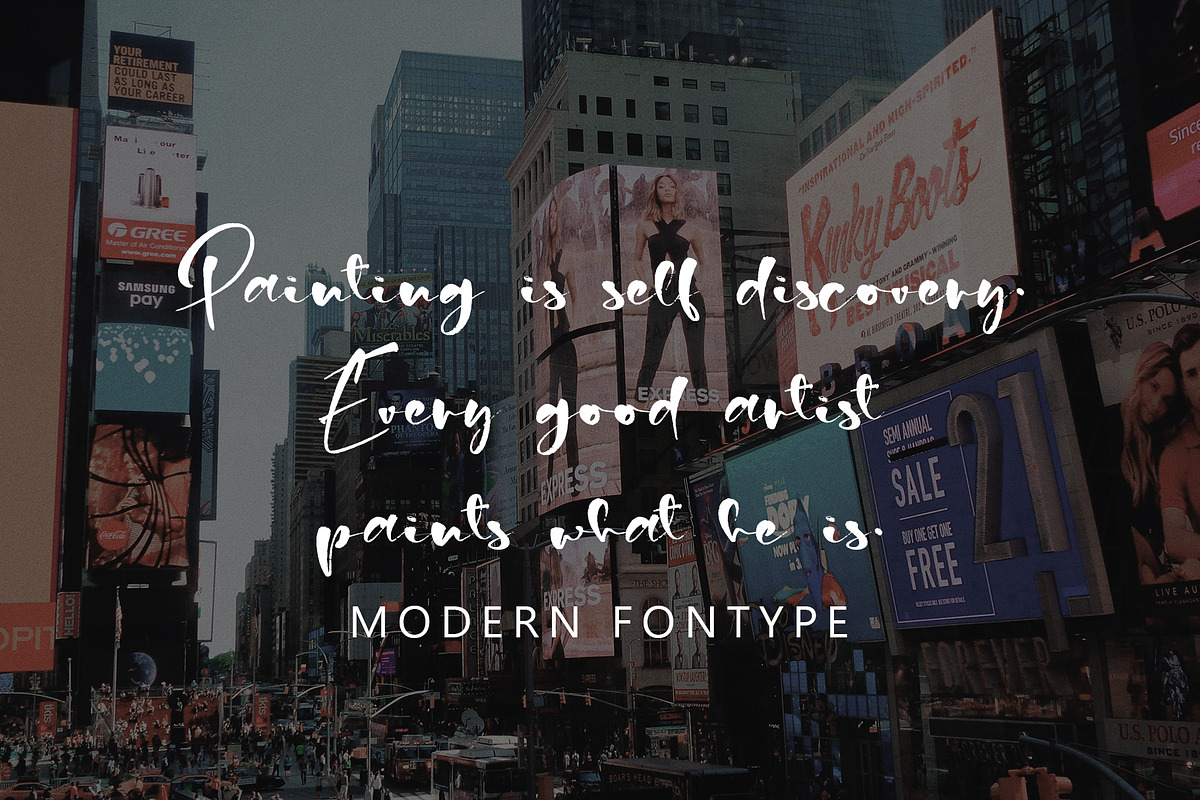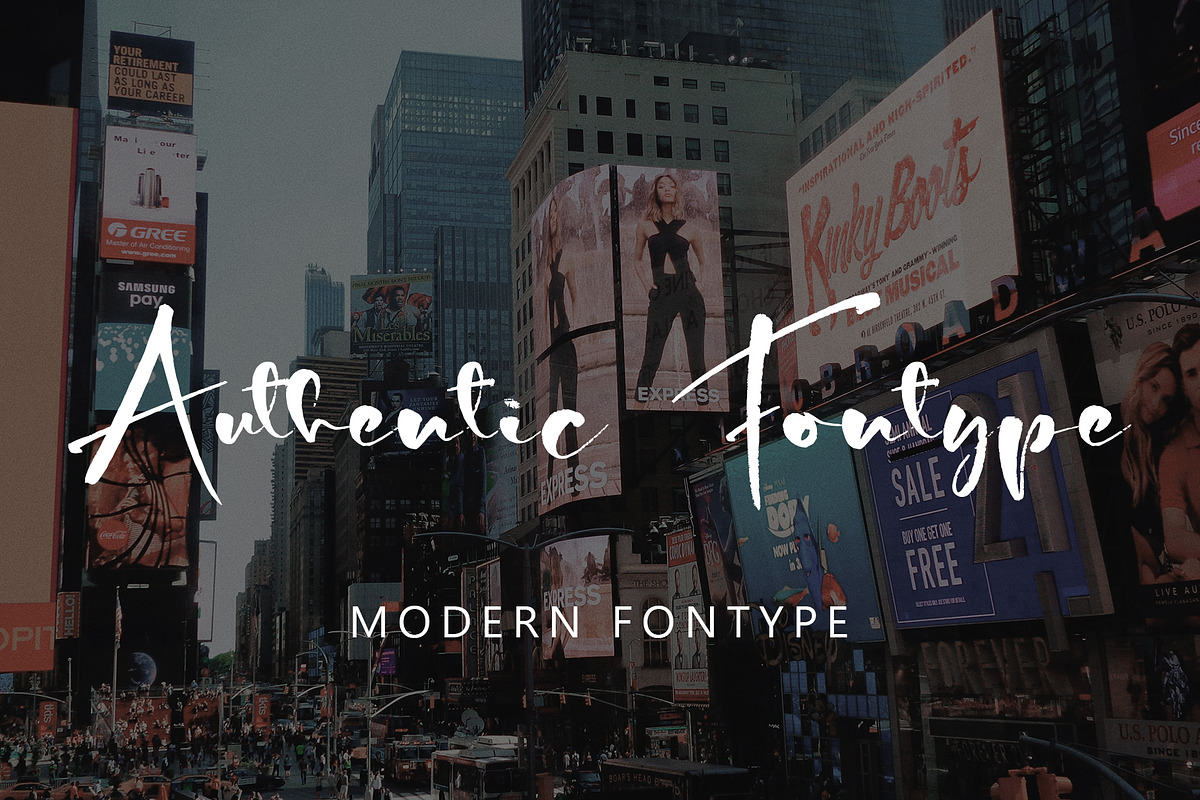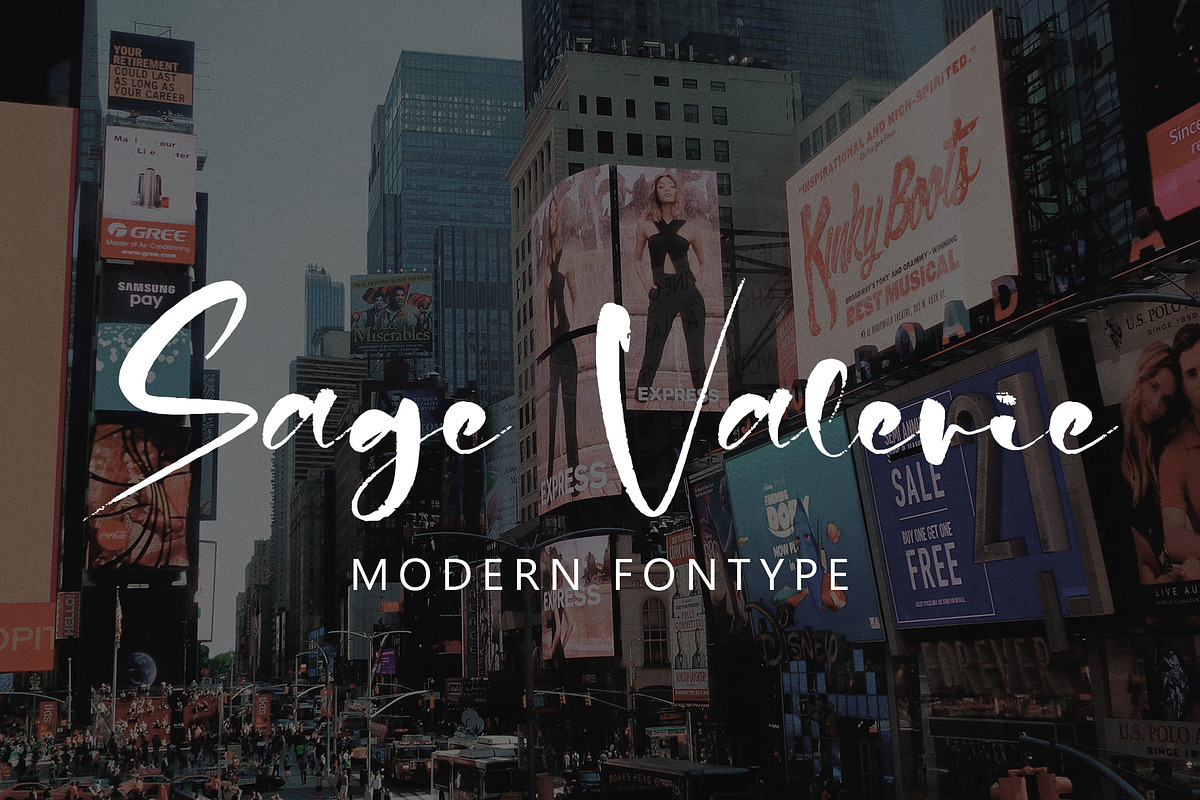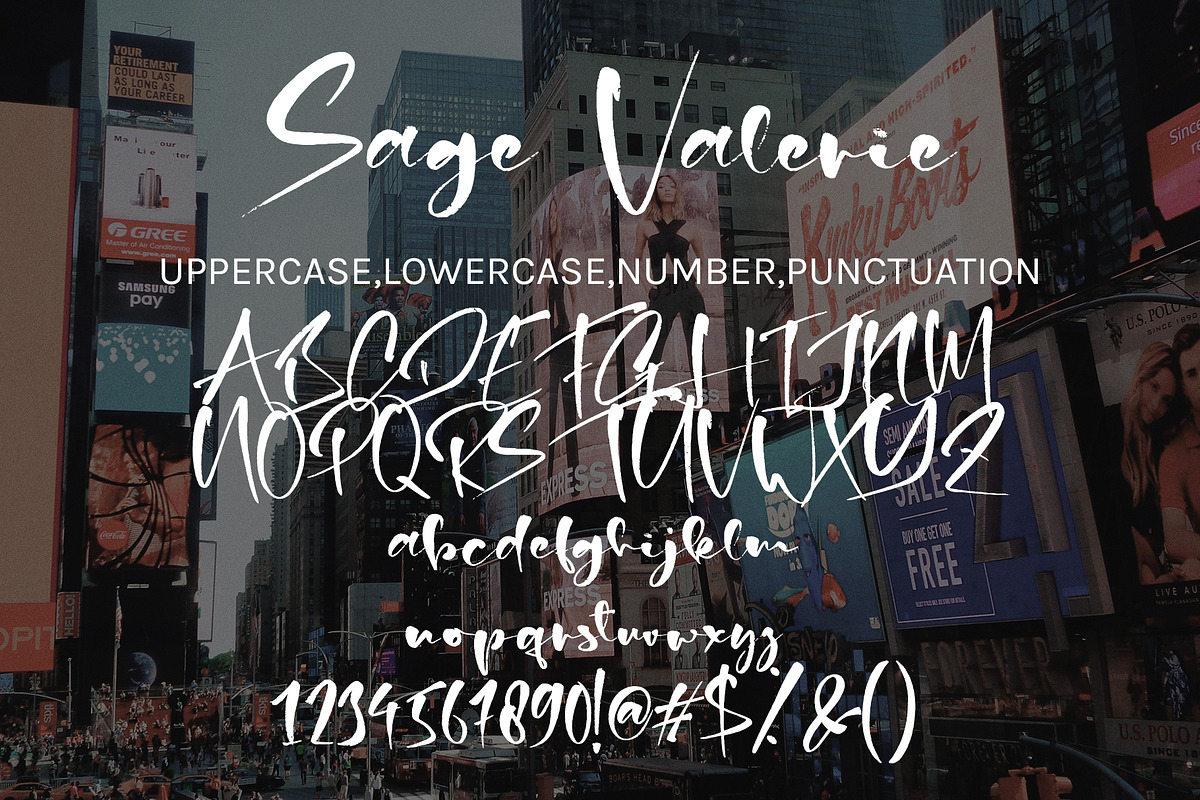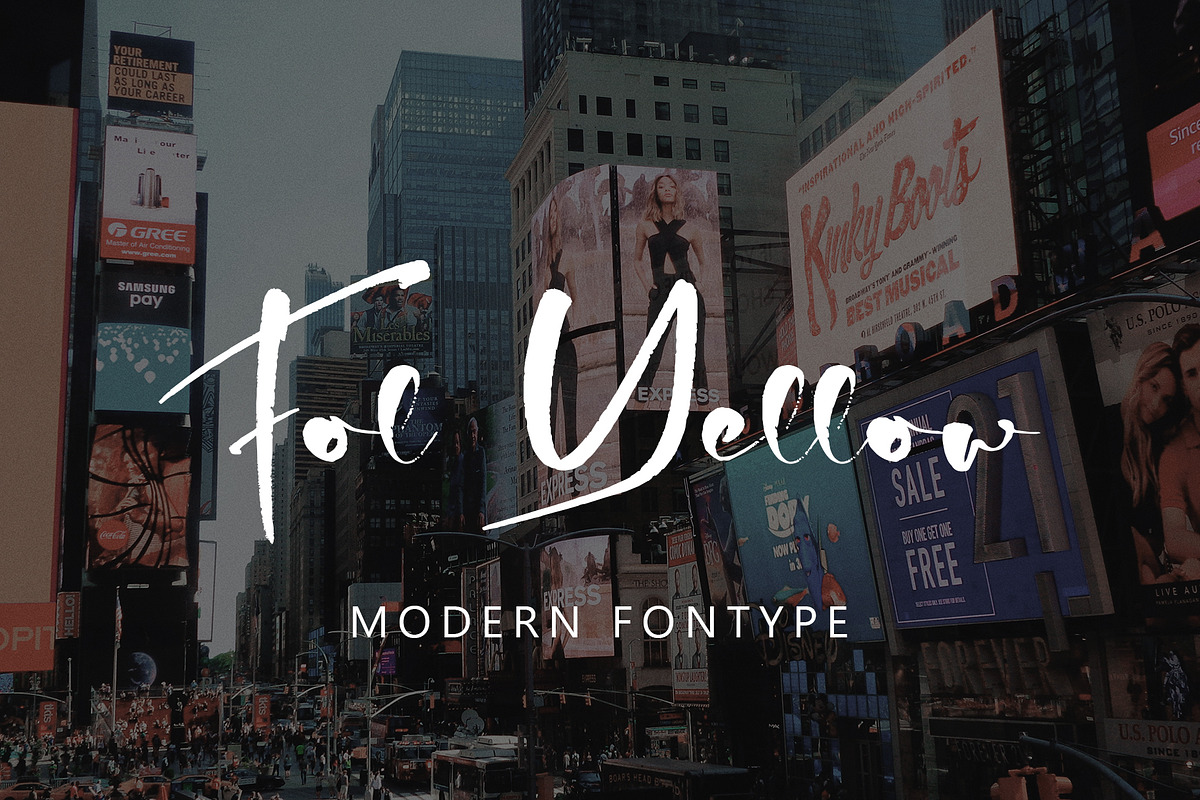
Sage Valerie
Sage Valerie with new style, this font will perfect for many different project ex: quotes, logo, blog header, poster, banding, letter, invitation, stationery, etc...